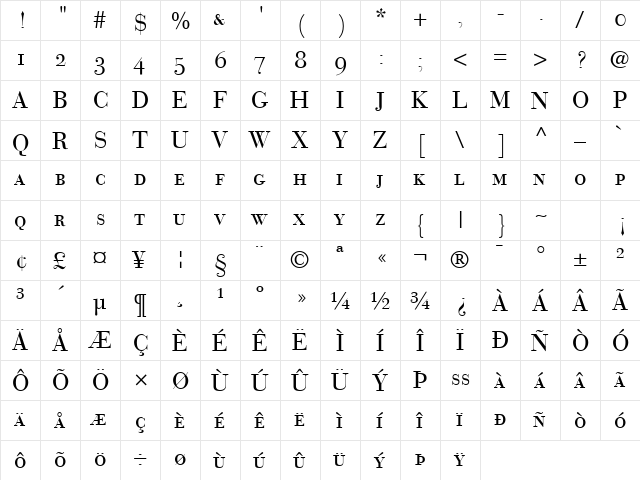
Bodoni Recut OldStyle SSi Small Caps
Design Context for Bodoni Recut OldStyle SSi Typeface
Bodoni Recut OldStyle SSi brings classic typographic sensibility to the table — its serifs and measured letterforms reflect centuries of print heritage.
Pro Tip: Use Bodoni Recut OldStyle SSi for editorial body copy and considered headline work. Pair with a neutral sans for UI elements or captions to create a classic hierarchy.